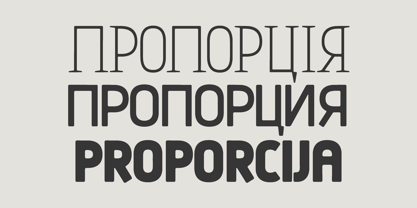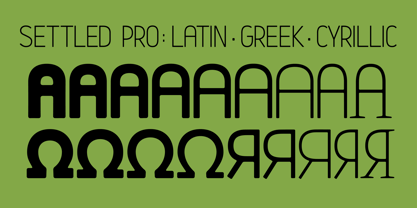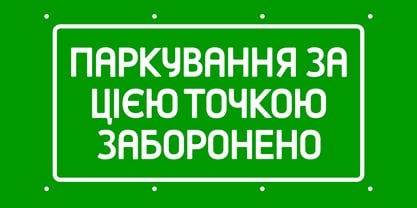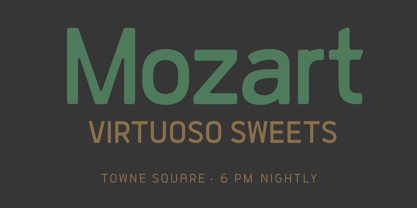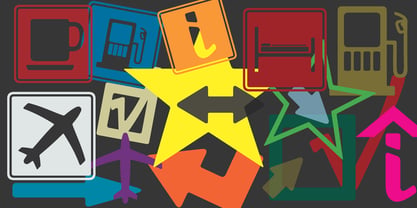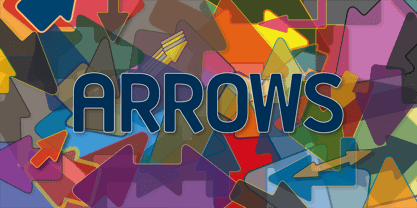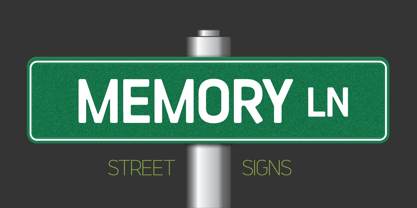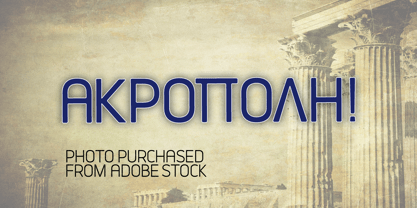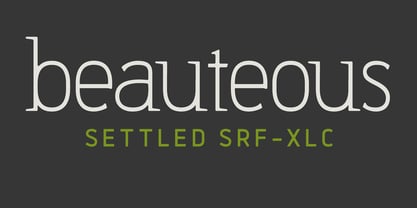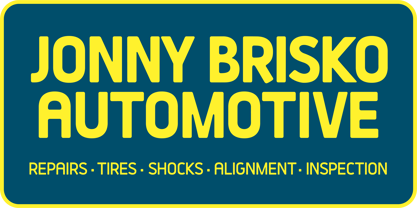
Settled Pro
Settled Pro is a family of nine display fonts: eight sans-serif face and one serif face. The stems have rounded corners. Many applications obtain, such as signage of all sizes, storefronts, headlines, billboards, building signs, brochures, menus, logos, branding, and the like. Settled fonts comprise Latin 1, Latin 2, Greek and Cyrillic glyphs, with various numerics. Arrows, ligatures, and image glyphs are included. Each face is identical but for the change of background color.
Settled CAPS and CLR fonts are not accurately displayed until companies and apps update to support SVG color fonts. ADOBE and ADOBE APPS, the intended design space for our fonts, DO SUPPORT SVG COLOR FONTS. So, we will show you the glyphs in PNGs on our page. for now. Display fonts are the favored form, so useful for signage (business, building, billboard, etc), A-frames, news and advertising headlines, brochures, book jackets, menus, and the like.Graphic design has been a gift to me, to pay my way, and to enjoy working. At first using photography in conjunction with vector drawing, letterforms soon became the source of great pleasure as well as painstaking work. For me, letterforms add both beauty and function to life.